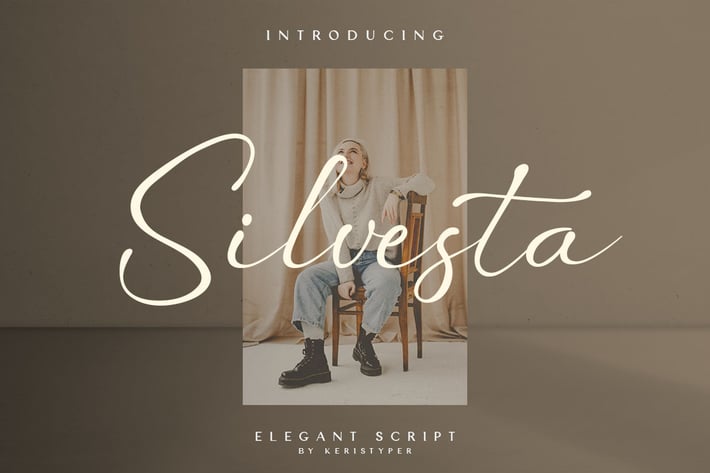
Silvesta Font
Introducing, Silvesta script font. This font made with simple and elegant hand writing will create a stunning signature style. This type of font is perfectly made to be applied especially in logo, and the other various formal forms such as invitations, labels, logos, magazines, books, greeting/wedding cards, packaging, fashion, makeup, stationery, novels, labels, or any type of advertising purpose.